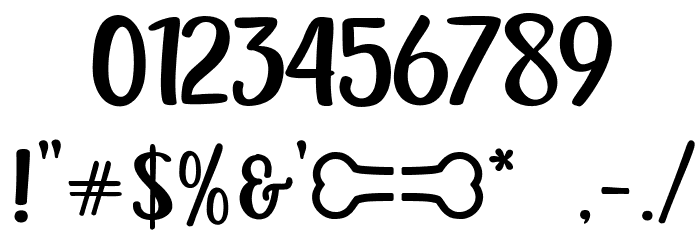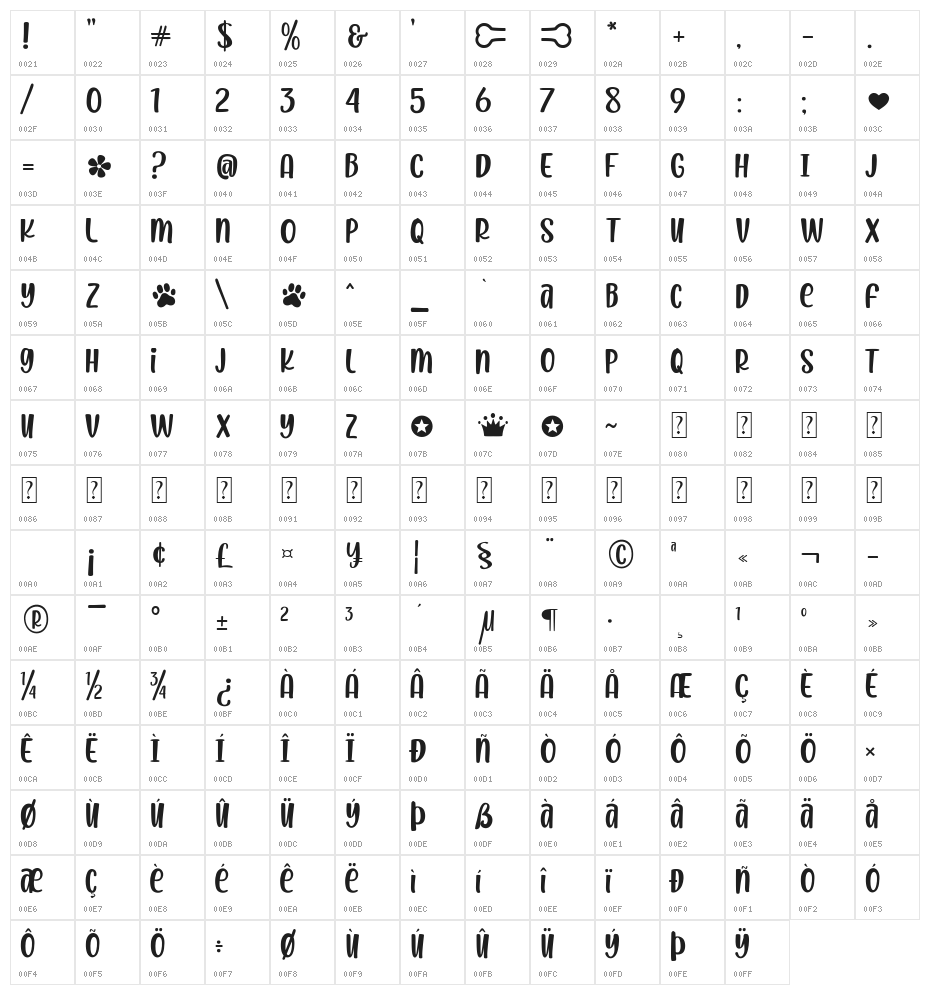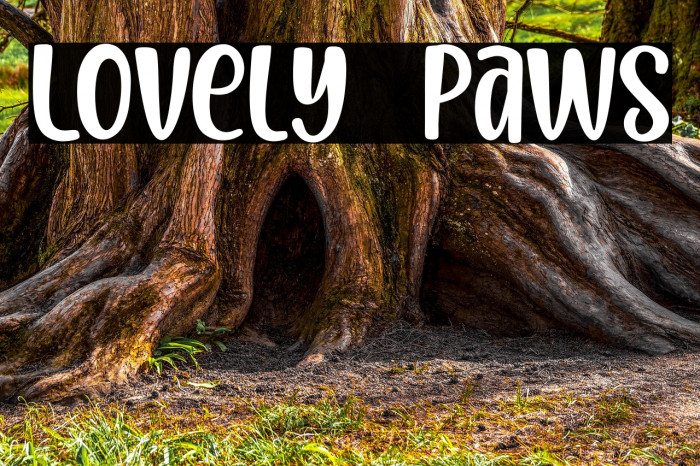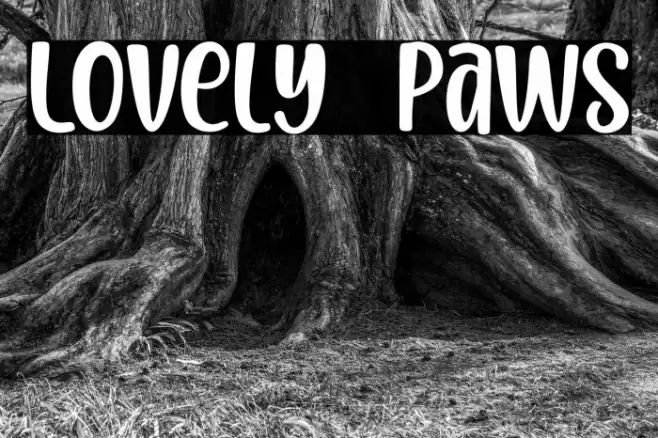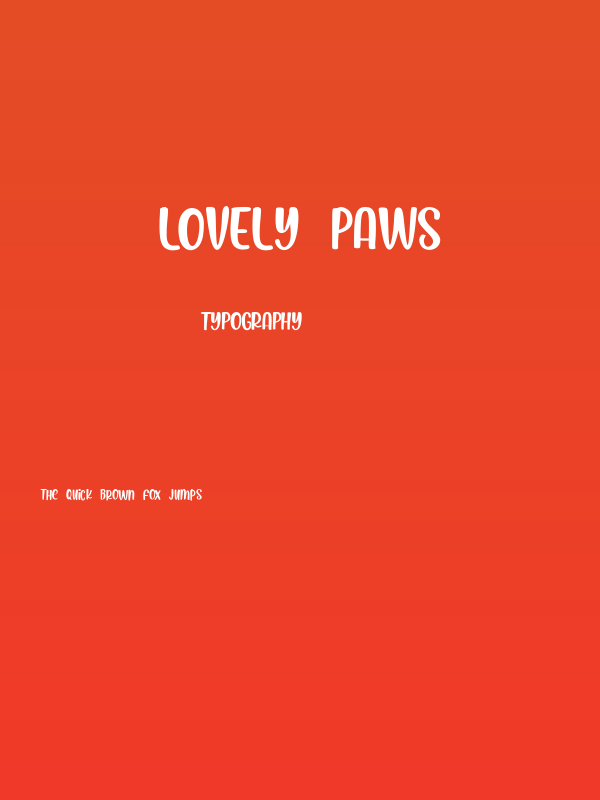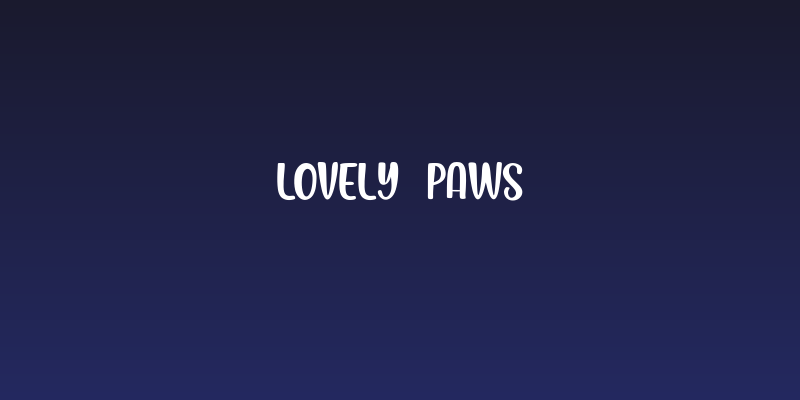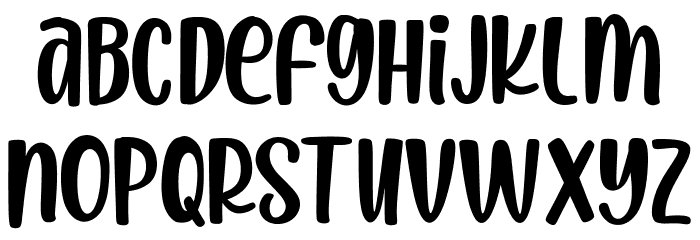
Lovely Paws Font
Lovely Paws Description
This playful and whimsical font features rounded, bold characters with a hand-drawn appearance. The letters have a consistent thickness, giving them a uniform look, while the slightly irregular shapes add a touch of charm and personality. The font includes both uppercase and lowercase letters, numbers, and a variety of special characters. Its design is reminiscent of casual handwriting, making it ideal for projects that require a friendly and approachable feel. The overall style is decorative, with a modern twist that makes it suitable for a wide range of creative applications.
| Proposed Projects | Great for children's books, playful branding, greeting cards, and creative posters. |